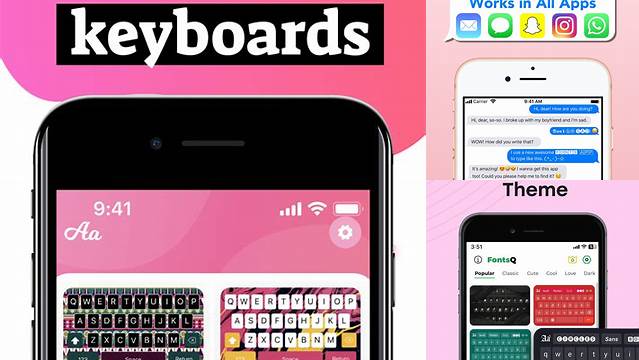
Cool Fonts For IPhone Keyboard: Make Your Texts Pop!
Hey guys! Ever feel like your iPhone keyboard is just a little… boring? You're not alone! We all crave a little personalization, and what better way to spice things up than with some cool fonts for your iPhone keyboard? This guide is your ultimate resource to transform your texting game from drab to fab. We'll explore everything from built-in options to third-party apps, ensuring your messages always stand out. So, get ready to dive in and discover how to make your iPhone keyboard truly your own! Let's get started!
1. Custom Fonts for iPhone Keyboard: A Deep Dive
Let's kick things off with a deep dive into the world of custom fonts for your iPhone keyboard. While iOS doesn't natively allow you to change the system-wide keyboard font, there are clever workarounds and app-based solutions to achieve the desired aesthetic. Many apps provide custom keyboards with a variety of fonts that you can easily switch between. These apps often come with additional features like themes, GIFs, and stickers, making your texting experience even more fun and engaging. Exploring these options can really unlock a new level of self-expression in your digital communications. Remember, finding the right app is key, so read reviews and try out a few before committing to one. Consider things like ease of use, font selection, and any potential privacy concerns. After all, you want your cool font to come with peace of mind. And hey, don't be afraid to experiment! The beauty of these apps is that you can change your font as often as you like, keeping your texting style fresh and exciting.
2. Best Font Apps for iPhone Keyboards in 2024
Okay, guys, let’s talk about the best font apps for iPhone keyboards in 2024. The app store is overflowing with options, but which ones are actually worth your time? We're looking for apps with a wide selection of fonts, seamless integration with your existing keyboard, and, of course, that are safe and secure to use. Some popular choices consistently rank high for their user-friendly interfaces and extensive font libraries. Look out for apps that offer previews, so you can see exactly what the font will look like before you commit. Many apps also offer customization options, like adjusting font size and color, giving you even more control over your keyboard's appearance. Beyond fonts, some of these apps include features such as custom themes, swipe typing, and even built-in translation. Make sure to read user reviews and compare features to find the app that best suits your needs and style. Remember, the goal is to enhance your texting experience, not complicate it! So, keep an eye out for apps that are intuitive and easy to use. Happy font hunting!
3. How to Change Font on iPhone Keyboard: Step-by-Step Guide
4. Free Fonts for iPhone Keyboard: Are They Worth It?
5. Stylish Fonts for iPhone Keyboard: Make a Statement
Want to make a statement with stylish fonts for your iPhone keyboard? Then, you're in the right place! Choosing the right font can dramatically change the tone of your messages and reflect your personality. Consider fonts that are bold, elegant, playful, or futuristic – whatever suits your style! Experiment with different fonts for different occasions. For example, you might use a formal font for professional emails and a more whimsical font for chatting with friends. Many font apps offer a variety of styles, from classic serifs to modern sans-serifs, and even decorative fonts with unique embellishments. Don't be afraid to try something new and unexpected! You can also use font apps to create custom fonts, combining different elements to create a truly unique look. Think about the overall aesthetic you want to achieve. Do you want your keyboard to look sleek and sophisticated, or fun and playful? The possibilities are endless! With a little creativity, you can transform your iPhone keyboard into a stylish accessory that reflects your individual style.
6. Keyboard Fonts for iPhone: A Comparison of Options
Navigating the world of keyboard fonts for iPhone can be overwhelming, so let's compare some of the options available. There are countless font apps on the App Store, each with its own strengths and weaknesses. Some apps focus on providing a wide variety of fonts, while others prioritize ease of use or unique features. Some apps offer a subscription-based model, while others are available for a one-time purchase. Consider your budget and how often you plan to use custom fonts when making your decision. Read reviews and compare features to find the app that best suits your needs. Think about what's important to you. Do you need a huge font library, or are you happy with a smaller selection of high-quality fonts? Do you want an app that's easy to use, or are you willing to spend some time learning the ropes? Some apps also offer features like custom themes, swipe typing, and built-in translation. By comparing the different options, you can make an informed decision and find the perfect font app for your iPhone keyboard.
7. Cool Fonts for iPhone Texting: Impress Your Friends
Want to impress your friends with cool fonts for iPhone texting? Using a unique font is a simple yet effective way to stand out from the crowd. It shows that you're willing to go the extra mile to personalize your messages and express your individuality. Choose fonts that are eye-catching and memorable. Consider fonts that are bold, playful, or elegant. You can also use different fonts for different contacts or group chats to add a personal touch. Experiment with different font sizes and colors to create even more visual impact. Be careful not to use fonts that are too difficult to read, as this can be frustrating for the recipient. The goal is to enhance your messages, not make them harder to understand. With a little creativity, you can use cool fonts to make your texts more engaging and memorable, leaving a lasting impression on your friends.
8. Aesthetic Fonts for iPhone Keyboard: Elevate Your Style
If you're all about aesthetics, then you need to explore aesthetic fonts for your iPhone keyboard. These fonts are designed to be visually pleasing and create a certain mood or atmosphere. Think of fonts that are elegant, minimalist, or whimsical. Choose fonts that reflect your personal style and the overall aesthetic you want to achieve. You can use aesthetic fonts to create a cohesive look across all your digital communications. Consider using the same font for your keyboard, social media bios, and even your website. This will help you create a strong and memorable brand identity. Experiment with different font combinations to find the perfect balance. You can also use font apps to create custom fonts, combining different elements to create a truly unique and aesthetic look. With the right fonts, you can elevate your iPhone keyboard and create a visually stunning experience.
9. Fun Fonts for iPhone Keyboard: Add Some Playfulness
Let's inject some fun into your texting with fun fonts for your iPhone keyboard! These fonts are all about adding a touch of playfulness and whimsy to your messages. Think of fonts that are quirky, cartoonish, or hand-drawn. Choose fonts that make you smile and bring a sense of joy to your communications. You can use fun fonts to lighten the mood and add a touch of humor to your texts. Consider using different fun fonts for different contacts or occasions. For example, you might use a silly font for chatting with your best friend or a more festive font for sending birthday wishes. Don't be afraid to experiment and try new things! The goal is to have fun and express your personality through your keyboard. With the right fun fonts, you can turn your iPhone keyboard into a source of endless amusement.
10. Unique Fonts for iPhone Keyboard: Stand Out From the Crowd
Tired of the same old boring fonts? Then it's time to explore unique fonts for your iPhone keyboard and stand out from the crowd. These fonts are designed to be different and memorable. Think of fonts that are unusual, unconventional, or even a little bit weird. Choose fonts that reflect your individuality and make a statement. You can use unique fonts to express your creativity and show the world that you're not afraid to be different. Consider using different unique fonts for different purposes. For example, you might use a bold and edgy font for your business emails or a more whimsical font for your personal messages. The possibilities are endless! With the right unique fonts, you can transform your iPhone keyboard into a work of art.
11. Best Keyboard Fonts for iPhone Photography Enthusiasts
Hey, photographers! Even your keyboard can reflect your passion. The best keyboard fonts for iPhone photography enthusiasts often lean towards clean, modern designs that complement the sleekness of professional imagery. Think minimalist sans-serif fonts that don't distract from the visual content. A subtle, understated font can enhance the overall aesthetic of your communication, creating a sense of sophistication and attention to detail. Consider fonts that are inspired by photography techniques or historical photographic processes. Experiment with fonts that have a vintage or film-like quality to add a touch of nostalgia. You can also use font apps to create custom fonts, incorporating elements from your favorite photography styles. For example, you might create a font that's inspired by the typography used in classic photography magazines. With the right fonts, you can transform your iPhone keyboard into a tool that enhances your passion for photography.
12. Top Fonts for iPhone Keyboard: A User's Choice
Let’s see top fonts for iPhone keyboard, according to users. User choice is often influenced by factors such as readability, aesthetics, and ease of use. Fonts that are consistently praised for their clarity and legibility are always popular choices. Fonts that are visually appealing and complement the overall design of the iPhone are also highly sought after. User reviews and ratings can provide valuable insights into the best font apps available. Pay attention to feedback on the app's performance, font selection, and customer support. Consider trying out a few different font apps to see which ones best suit your needs. Many apps offer free trials or limited versions that allow you to test out the fonts before committing to a purchase. Ultimately, the best font for your iPhone keyboard is the one that you find most comfortable and enjoyable to use. It is based on individual preferences.
13. Elegant Fonts for iPhone Keyboard: A Touch of Class
Want to add a touch of class with elegant fonts for your iPhone keyboard? These fonts are characterized by their refined lines, sophisticated curves, and timeless appeal. Think of fonts that are inspired by calligraphy or classic typography. Choose fonts that evoke a sense of grace, sophistication, and attention to detail. You can use elegant fonts to elevate your communications and create a sense of professionalism. Consider using different elegant fonts for different occasions. For example, you might use a formal serif font for writing important emails or a more flowing script font for sending thank-you notes. Experiment with different font sizes and colors to create the perfect balance. With the right elegant fonts, you can transform your iPhone keyboard into a symbol of your impeccable taste.
14. Minimalist Fonts for iPhone Keyboard: Keep it Simple
Sometimes, less is more. Keep it simple with minimalist fonts for your iPhone keyboard. These fonts are characterized by their clean lines, simple shapes, and lack of unnecessary ornamentation. Think of fonts that are inspired by modern design and Scandinavian aesthetics. Choose fonts that are easy to read and visually unobtrusive. You can use minimalist fonts to create a clean and uncluttered look for your iPhone keyboard. Consider using a minimalist font for all your communications to create a consistent and professional image. Experiment with different font weights and sizes to achieve the desired effect. With the right minimalist fonts, you can transform your iPhone keyboard into a symbol of your refined taste and attention to detail.
15. Modern Fonts for iPhone Keyboard: Stay Trendy
Keep your keyboard current with modern fonts for your iPhone keyboard. These fonts are characterized by their sleek lines, contemporary shapes, and forward-thinking design. Think of fonts that are inspired by technology, architecture, and fashion. Choose fonts that are innovative, stylish, and reflect the latest trends. You can use modern fonts to give your iPhone keyboard a cutting-edge look. Consider using different modern fonts for different purposes. For example, you might use a futuristic font for your gaming chats or a more geometric font for your work emails. Experiment with different font colors and sizes to create a unique and eye-catching effect. With the right modern fonts, you can transform your iPhone keyboard into a symbol of your tech-savviness and style.
16. Handwriting Fonts for iPhone Keyboard: Personalize Your Texts
Add a personal touch to your texts with handwriting fonts for your iPhone keyboard. These fonts mimic the look of handwritten letters, creating a warm and inviting feel. Think of fonts that are cursive, script, or even slightly messy. Choose fonts that reflect your personality and add a human touch to your digital communications. You can use handwriting fonts to make your texts feel more personal and authentic. Consider using different handwriting fonts for different contacts or occasions. For example, you might use a playful handwriting font for chatting with your friends or a more elegant script font for sending thank-you notes. Be mindful of readability when using handwriting fonts, as some can be difficult to decipher. With the right handwriting fonts, you can transform your iPhone keyboard into a tool for expressing your unique personality and connecting with others on a more personal level.
17. Using iPhone Keyboard Fonts for Social Media
Level up your social media game by using iPhone keyboard fonts for social media. Custom fonts can make your posts and comments stand out, attracting attention and expressing your unique style. Use fonts that align with your brand or personal aesthetic. Experiment with different fonts for different platforms to optimize engagement. Be mindful of readability, especially on smaller screens. Use fonts strategically to highlight important information or create a specific mood. Custom fonts can add personality and flair to your social media presence. However, ensure the platforms support the font you're using; otherwise, it might default to a standard font for other viewers. Always prioritize clarity and accessibility to ensure everyone can enjoy your content.
18. The Future of iPhone Keyboard Fonts
What does the future hold for the future of iPhone keyboard fonts? As technology evolves, we can expect to see even more innovative and customizable font options for our iPhones. Imagine keyboards that adapt to your mood, context, or even the recipient of your message. Artificial intelligence could play a role in suggesting fonts based on your writing style or the topic of conversation. We might also see more seamless integration between font apps and other iOS features. The possibilities are endless! As user demand for personalization continues to grow, developers will undoubtedly find new and creative ways to enhance the iPhone keyboard experience. The future of iPhone keyboard fonts is bright, and we can't wait to see what's in store.
19. Fonts for iPhone Keyboard: Accessibility Considerations
Accessibility is key! When choosing fonts for your iPhone keyboard, it's crucial to consider accessibility for all users. Select fonts that are easy to read, with clear and distinct letterforms. Avoid fonts that are overly decorative, stylized, or condensed. Consider using a font size that is large enough to be easily read by people with visual impairments. Provide options for users to adjust the font size and contrast. Ensure that the font color contrasts sufficiently with the background color. By prioritizing accessibility, you can create a keyboard experience that is inclusive and enjoyable for everyone.
20. Keyboard Font Generators for iPhone: DIY Fonts
Feeling creative? Then DIY fonts, use keyboard font generators for iPhone. These tools allow you to design your own unique fonts, giving you complete control over every aspect of the font's appearance. Experiment with different letterforms, weights, and styles. Create fonts that reflect your personality, brand, or artistic vision. Share your custom fonts with friends and family. Keyboard font generators can be a fun and rewarding way to express your creativity and personalize your iPhone keyboard. However, creating a truly polished and functional font requires a good understanding of typography principles. Consider starting with simple designs and gradually increasing complexity as you gain experience.
21. Fonts for iPhone Keyboard: Branding Opportunities
Businesses, listen up! Branding opportunities with fonts for iPhone keyboard exist. Use custom fonts to reinforce your brand identity and create a consistent brand experience across all your communications. Select fonts that align with your brand's personality, values, and target audience. Use your brand fonts on your keyboard, website, social media, and marketing materials. A consistent font choice can help to increase brand recognition and create a more professional image. Consider creating a custom keyboard app with your brand's fonts and logo. Branded fonts can be a powerful tool for building brand loyalty and differentiating yourself from the competition.
22. Fonts for iPhone Keyboard: Language Support
Don't forget about language! Language support with fonts for iPhone keyboard is important. Ensure that the fonts you choose support the languages you need to type in. Many font apps offer fonts that support a wide range of languages, including accented characters and special symbols. If you need to type in a language that uses a non-Latin alphabet, make sure the font you select supports that alphabet. Check the font's character map to see which characters are supported. Using a font that doesn't support your language can result in missing characters or incorrect rendering of text. Prioritize fonts that offer comprehensive language support to ensure seamless communication.
23. Fonts for iPhone Keyboard: Legal Considerations
Heads up! Legal considerations with fonts for iPhone keyboard need to be taken into account. Before using a font, make sure you have the necessary licenses or permissions. Many fonts are copyrighted and require a license for commercial use. Read the font's license agreement carefully to understand the terms of use. Avoid using pirated or unlicensed fonts, as this could result in legal action. If you're using fonts for commercial purposes, consider purchasing a commercial license. Respecting font copyrights helps to support the work of font designers and ensures that they can continue to create beautiful and innovative fonts.
24. Fonts for iPhone Keyboard: Battery Life Impact
Be mindful! Battery life impact with fonts for iPhone keyboard can be a factor. Some custom keyboard apps can consume more battery life than the default keyboard. This is because custom keyboards may require more processing power to render complex fonts or animations. If you're concerned about battery life, consider using a simple and lightweight font app. Close any unnecessary keyboard apps when you're not using them. Adjust your iPhone's settings to optimize battery life, such as reducing screen brightness and disabling background app refresh. Monitoring your battery usage can help you to identify any keyboard apps that are draining your battery.
25. Fonts for iPhone Keyboard: Security Risks
Stay safe! Security risks with fonts for iPhone keyboard should be a top priority. Custom keyboard apps can potentially pose a security risk if they're not properly vetted. Some malicious apps may collect your keystrokes or other sensitive information. Before installing a custom keyboard app, do your research and read reviews carefully. Only download apps from trusted sources, such as the App Store. Pay attention to the permissions that the app requests. Avoid granting unnecessary permissions. Be cautious about entering sensitive information, such as passwords or credit card numbers, while using a custom keyboard. By being vigilant, you can minimize the risk of security breaches.
26. How to Update Fonts on iPhone Keyboard
Keeping your fonts fresh is easy. To update fonts on iPhone keyboard, you'll primarily be updating the app that provides those fonts. Head to the App Store, search for the font app you're using, and check for available updates. Regularly updating ensures you have the latest font styles, bug fixes, and security patches. Some apps might have built-in update mechanisms within their settings, so explore those too. Staying up-to-date with your font apps helps you keep your keyboard looking stylish and functioning smoothly.
27. Managing Multiple Keyboard Fonts on iPhone
Switching between styles is a snap! Managing multiple keyboard fonts on iPhone involves adding and organizing your preferred keyboard apps. Go to Settings > General > Keyboard > Keyboards to see your installed keyboards. You can add new ones or rearrange the order to prioritize your favorites. When typing, tap the globe icon to cycle through your enabled keyboards and select the one with the font you want. This easy method allows you to quickly change your font style to suit any conversation or mood. Keep your keyboard list tidy to streamline the switching process!
28. Troubleshooting Font Issues on iPhone Keyboard
Got a font glitch? To troubleshoot font issues on iPhone keyboard, start by restarting your device. If that doesn't work, check the keyboard app's settings to ensure the font is properly selected and enabled. Make sure the app is up-to-date. If the font still isn't displaying correctly, try removing and reinstalling the keyboard app. Also, verify that your iPhone's software is current. If the problem persists, contact the app developer for support. With these steps, you can usually resolve most font-related problems and get your keyboard back to looking its best.
29. Combining Emojis with Custom Keyboard Fonts
Emojis and fonts, a match made in texting heaven! To combine emojis with custom keyboard fonts, simply switch to your custom keyboard using the globe icon, then access the emoji keyboard (usually a smiley face icon). The chosen font will apply to your text, while you can insert emojis as usual. Some custom keyboard apps might even offer unique emoji styles that complement their fonts. Experiment with different combinations to create expressive and visually appealing messages. Emojis add personality and emotion, enhancing the impact of your custom font choices!
30. Fonts for iPhone Keyboard: User Reviews and Ratings
Before you download, check the stats! User reviews and ratings for fonts for iPhone keyboard apps are invaluable. Head to the App Store and browse the reviews section for the apps you're considering. Pay attention to comments about font selection, ease of use, stability, and customer support. Higher-rated apps with positive reviews generally offer a better experience. Be wary of apps with very few reviews or a large number of negative comments. User feedback can help you make an informed decision and avoid potential headaches. Real-world experiences offer great insight.